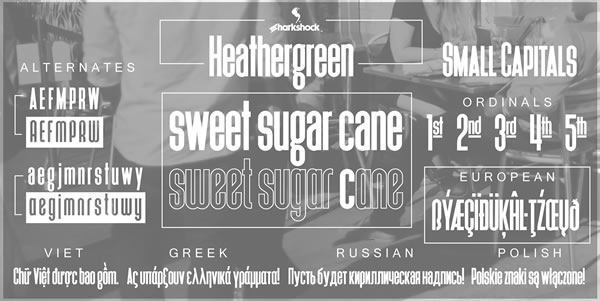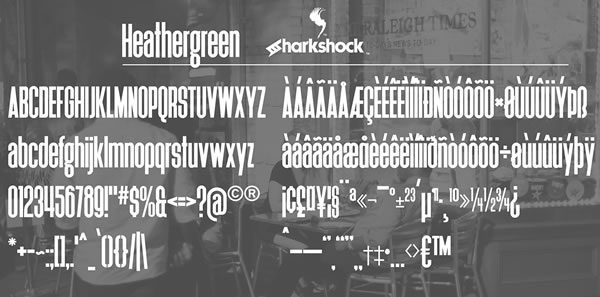
Introducing the Heathergreen Font: A Fresh and Unique Typeface by Sharkshock
Are you tired of using the same old fonts in your designs? Look no further! The Heathergreen font by Sharkshock is here to shake things up. This beautiful and unique typeface is perfect for designers and crafters looking to add a touch of elegance and sophistication to their work. In this article, we’ll take a closer look at the Heathergreen font, its features, and how you can use it to elevate your designs.
What is the Heathergreen Font?
The Heathergreen font is a stunning typeface designed by Sharkshock, a renowned font foundry. This font is perfect for those who want to add a touch of nature and elegance to their designs. The Heathergreen font comes in two styles: Heathergreen Regular and Heathergreen Italic, giving you flexibility and versatility in your typography.
Key Features of the Heathergreen Font
- Two Font Styles: The Heathergreen font comes with two font styles: Heathergreen Regular and Heathergreen Italic. This allows you to use the font in a variety of contexts, from body text to headings and titles.
- Unique and Elegant Design: The Heathergreen font features a unique and elegant design that is sure to make your designs stand out. The font’s subtle curves and lines give it a sophisticated and refined look.
- High-Quality Typography: The Heathergreen font is designed with high-quality typography in mind. The font is clear, legible, and perfect for use in a variety of applications, from digital media to print.
- OpenType Features: The Heathergreen font supports OpenType features, which allow you to access a range of typographic features, including ligatures, stylistic alternates, and more.
Who Can Benefit from the Heathergreen Font?
The Heathergreen font is perfect for a range of designers and crafters, including:
- Graphic Designers: Graphic designers can use the Heathergreen font in a variety of projects, from branding and packaging to web design and advertising.
- Digital Artists: Digital artists can use the Heathergreen font to add a touch of elegance and sophistication to their artwork.
- Crafters: Crafters can use the Heathergreen font to create beautiful and unique craft projects, such as handmade cards, invitations, and more.
- Web Designers: Web designers can use the Heathergreen font to create visually appealing and user-friendly websites.
Tips for Using the Heathergreen Font
- Use it as a Headline Font: The Heathergreen font is perfect for use as a headline font. Its unique and elegant design makes it sure to grab attention.
- Pair it with Other Fonts: The Heathergreen font pairs well with other fonts, such as sans-serif fonts. Experiment with different font combinations to find the perfect look for your design.
- Use it for Body Text: The Heathergreen font is also suitable for use as a body text font. Its clear and legible design makes it perfect for reading.
| Author | Sharkshock |
The Heathergreen font by Sharkshock is a beautiful and unique typeface that is perfect for designers and crafters looking to add a touch of elegance and sophistication to their work. With its two font styles, high-quality typography, and OpenType features, the Heathergreen font is a versatile and valuable addition to any design collection. Whether you’re a graphic designer, digital artist, crafter, or web designer, the Heathergreen font is sure to become a favorite.